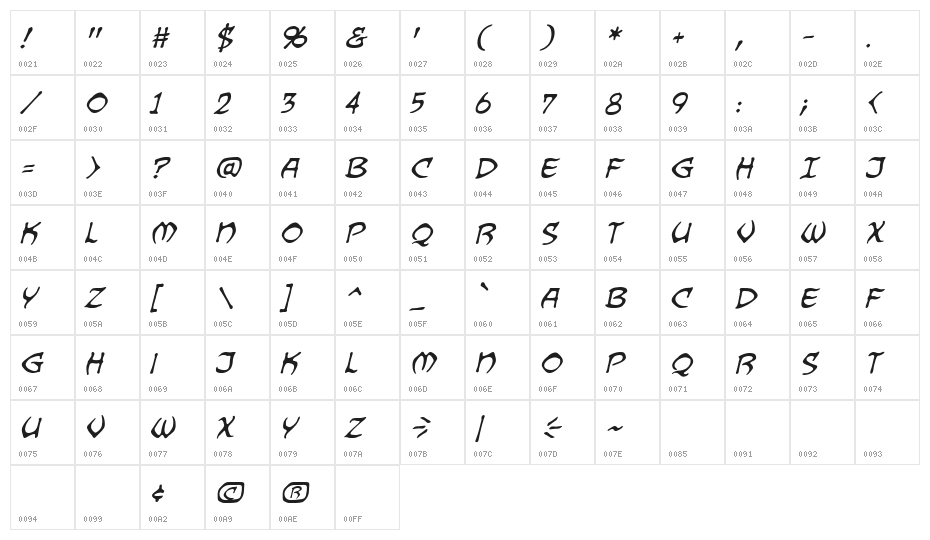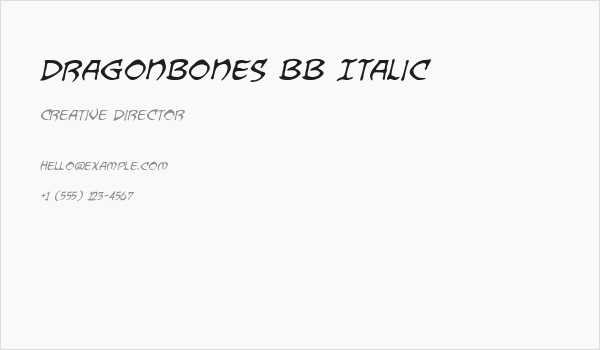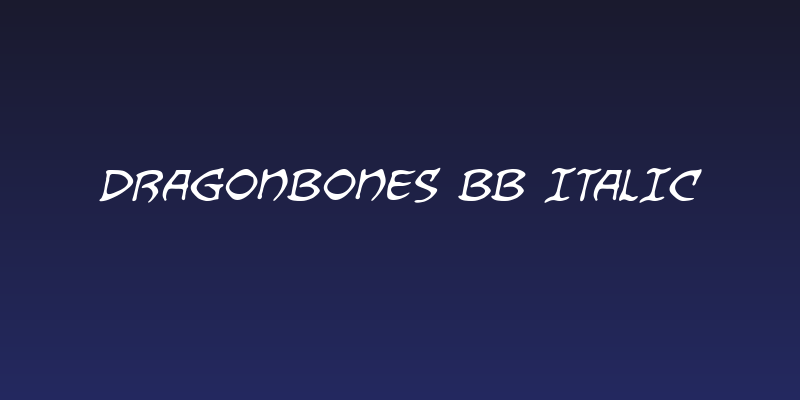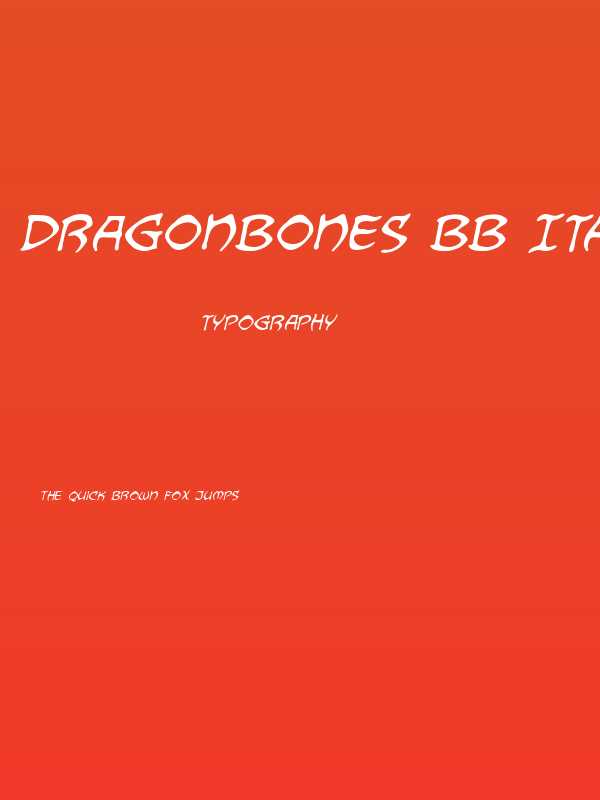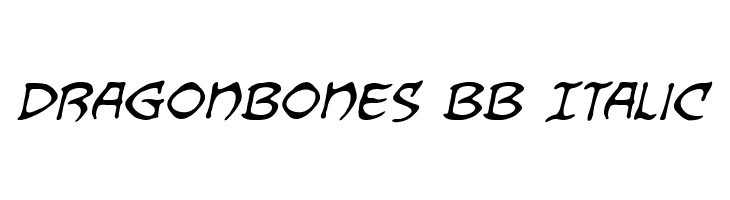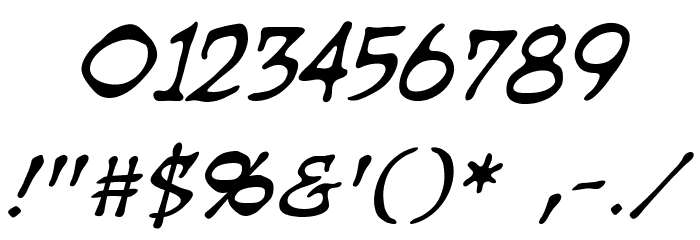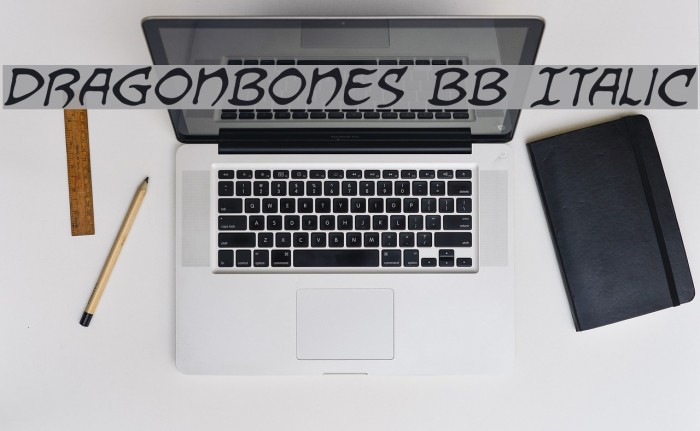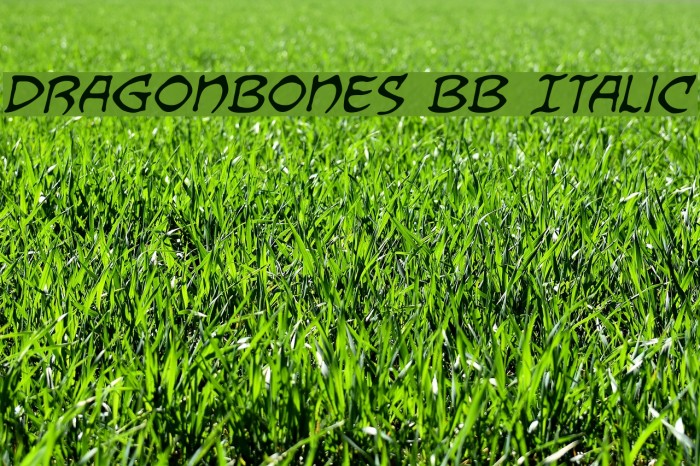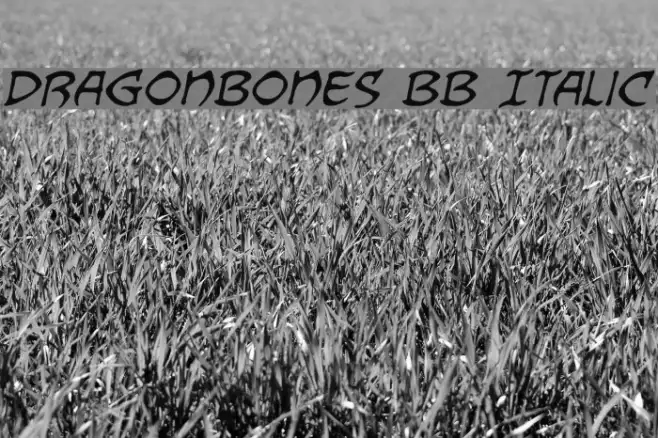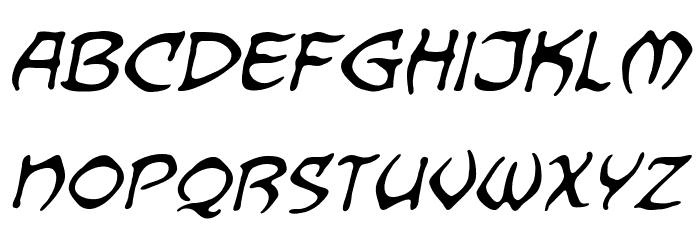
Dragonbones BB Italic Font
Dragonbones BB Italic Description
This font features a bold and dynamic style with a distinct italic slant, giving it a sense of movement and energy. The characters are crafted with a brush-like appearance, showcasing a combination of thick and thin strokes that add a dramatic flair. The uppercase and lowercase letters maintain a consistent flow, while the numerals and special characters complement the overall aesthetic. The font's unique design makes it stand out, with each character exhibiting a slightly irregular form that enhances its hand-drawn quality.